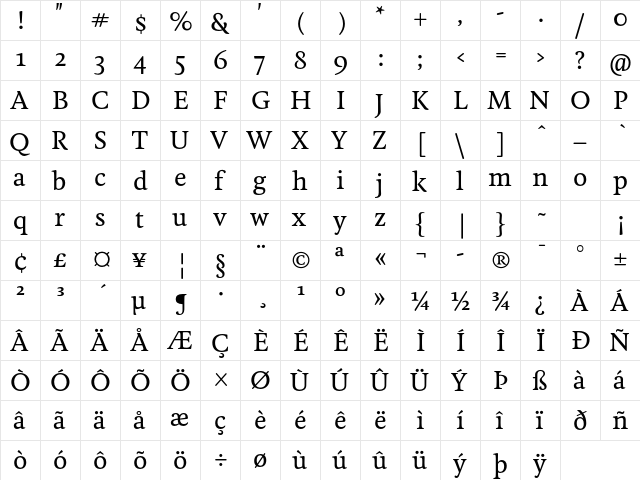
Feijoa Medium
Design Context for Feijoa Typeface
Feijoa takes a measured approach to typography — its balanced proportions and neutral character make it a reliable workhorse for both digital and print work.